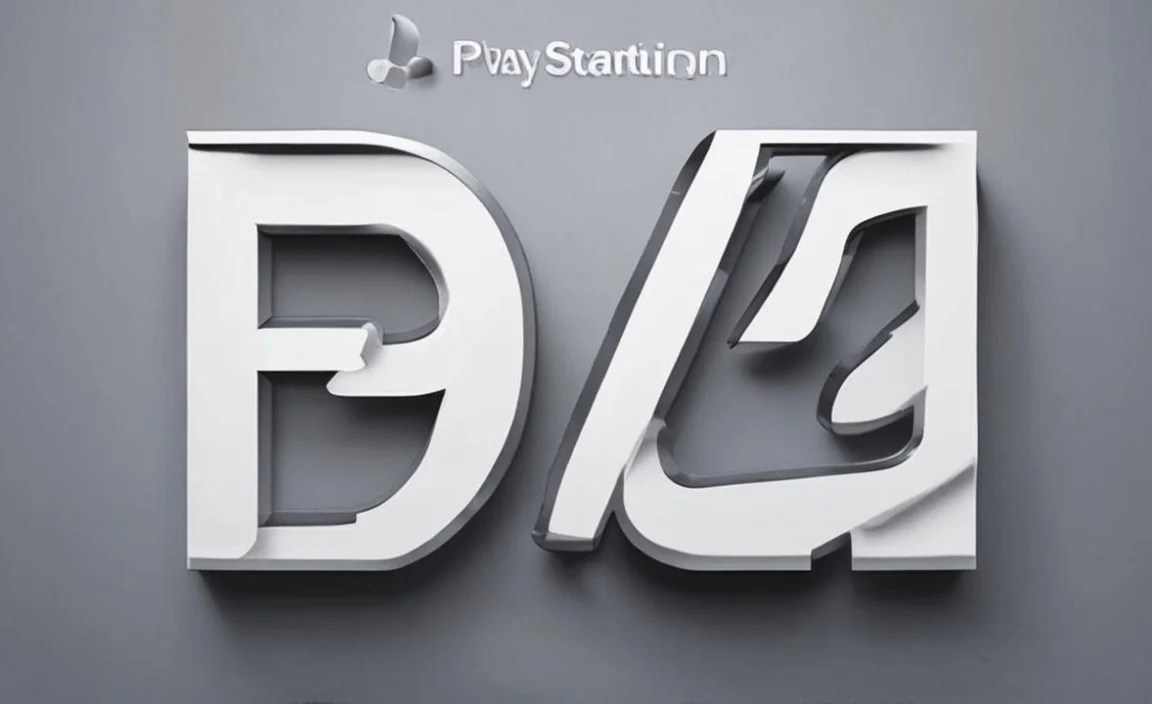
The PlayStation Font, inspired by Sony Interactive Entertainment’s iconic branding, is a sleek and futuristic typeface associated with the popular PlayStation consoles. From the original PlayStation to the PlayStation 5, the font and logo have evolved to reflect the innovation and energy of the gaming world. Designed by Manabu Sakamoto, the PlayStation logo combines the letters “P” and “S” in a unique 3D style, with the logotype beneath resembling the Zrnic font from Typodermic Fonts.
This typeface is ideal for gaming projects, logos, and creative designs that emphasize modernity and sophistication.
Type Of Playstation Font (Font Family)
The PlayStation Font offers variants inspired by the branding:
- PS Bold Replica: A bold and striking style for impactful designs.
- PS Old Replica: Inspired by earlier versions of the PlayStation branding.
These fonts are versatile, making them adaptable for a range of design needs, from logos to promotional materials.
Using Occasions Of The Playstation Font
The PlayStation Font is highly versatile, suitable for:
- Gaming Logos: Perfect for game-related branding and designs.
- Video Game Consoles: Ideal for PlayStation-inspired graphics and visuals.
- Social Media Posts: Enhance gaming-related Instagram, Facebook, or Twitter posts.
- Print Design: Great for posters, banners, and event invitations.
- Web Design: Use in UI/UX design, gaming blogs, or merchandise stores.
This font is often used in:
- Gaming Projects: Logos and graphics for PlayStation-inspired designs.
- Merchandise: T-shirts, posters, and banners with a gaming theme.
- Digital Content: YouTube thumbnails, Twitch overlays, and streaming graphics.
The PlayStation Font captures the innovative and modern spirit of gaming, making it a favorite among designers and gamers. Whether you’re creating a gaming logo, designing merchandise, or enhancing digital content, this font ensures a sleek and professional appeal. Its versatility and association with the PlayStation brand make it a timeless choice for creative projects.
1.What Is The Playstation Font?
The PlayStation Font is inspired by the logo of Sony Interactive Entertainment’s gaming consoles. It resembles Zrnic, a futuristic sans-serif typeface.
3.Where Can I Use The Playstation Font?
The font is great for gaming logos, merchandise design, social media posts, and branding projects.
4.Does The Playstation Font Support Multiple Languages?
Yes, many PlayStation-inspired fonts support multilingual scripts, including English, Japanese, and other global languages.
5.Can I Create Custom Designs With The Playstation Font?